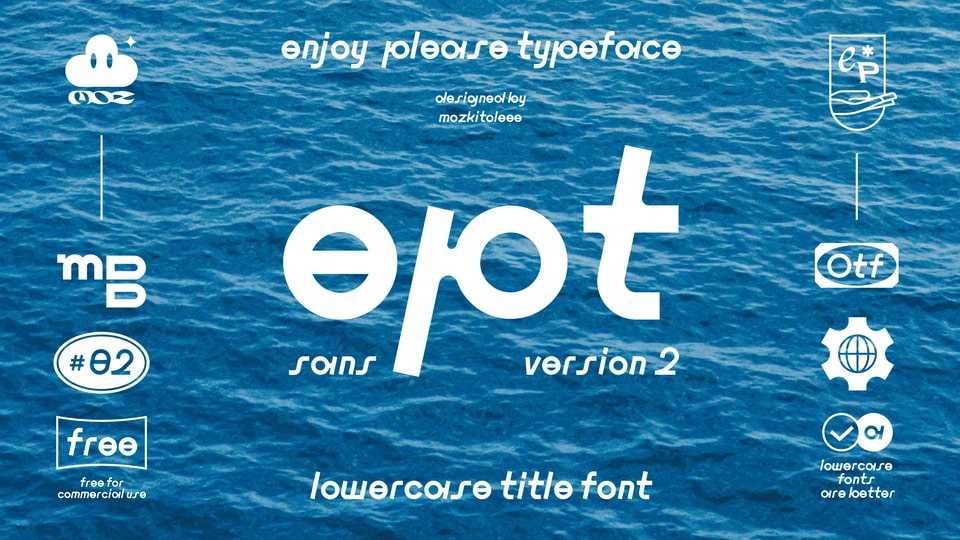
Download Enjoy Please 2 font, a display typeface that mainly uses lowercase letters, which can be applied both in the headlines and body content. In order to better reflect the relaxed feeling, the overall inclination of 12° is made to create letter shape more light and dynamic.
Designer: mozkito leee